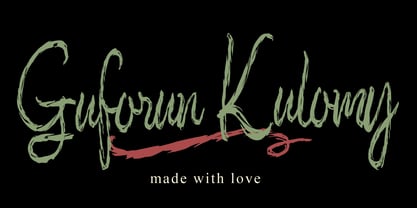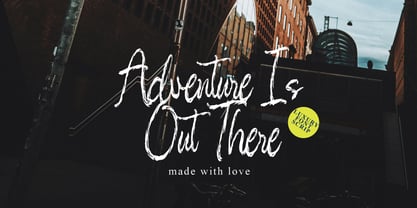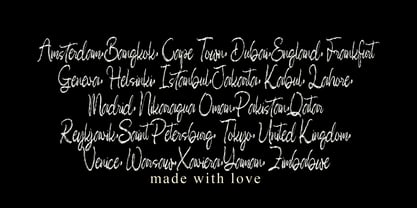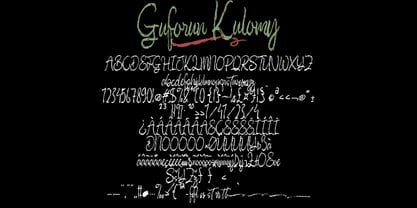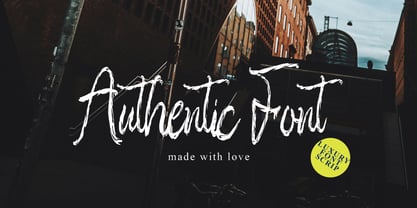
Guforun Kulomy
par Pineungtype misinklab
La famille de polices Guforun Kulomy a été conçue par Beni Saswita et publiée par Pineungtype misinklab. Guforun Kulomy contient 1 styles. En savoir plus sur cette famille
Guforun Kulomy is a light and thin handwritten font that adds a stylish and playful flair to any project. Ideal for those looking to make a bold statement in their designs, this font shines in a variety of applications. Whether you're crafting a fashion magazine cover, designing eye-catching social media posts, or creating elegant wedding invitations, Guforun Kulomy is the perfect choice for designers aiming to leave a lasting impression. With its charming aesthetic and versatile appeal, this font elevates the visual experience in branding and editorial layouts.
Concepteurs: Beni Saswita
Fonderie: Pineungtype misinklab